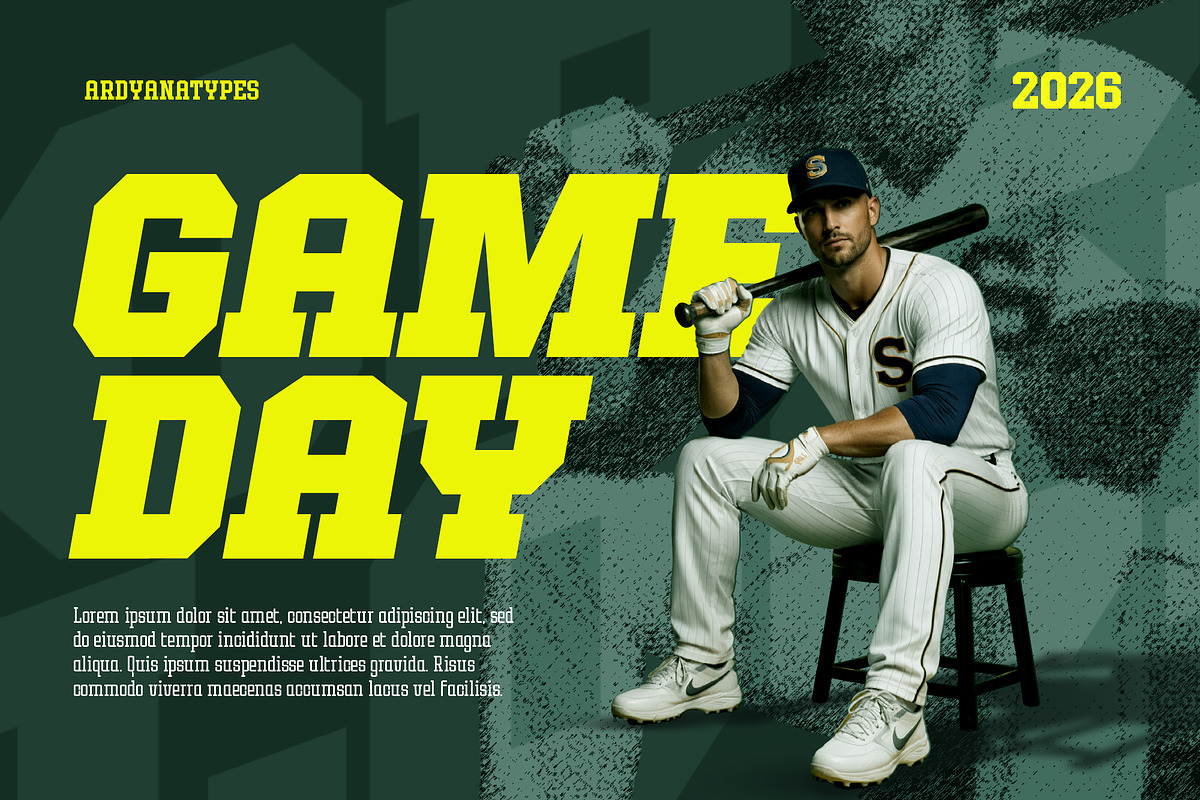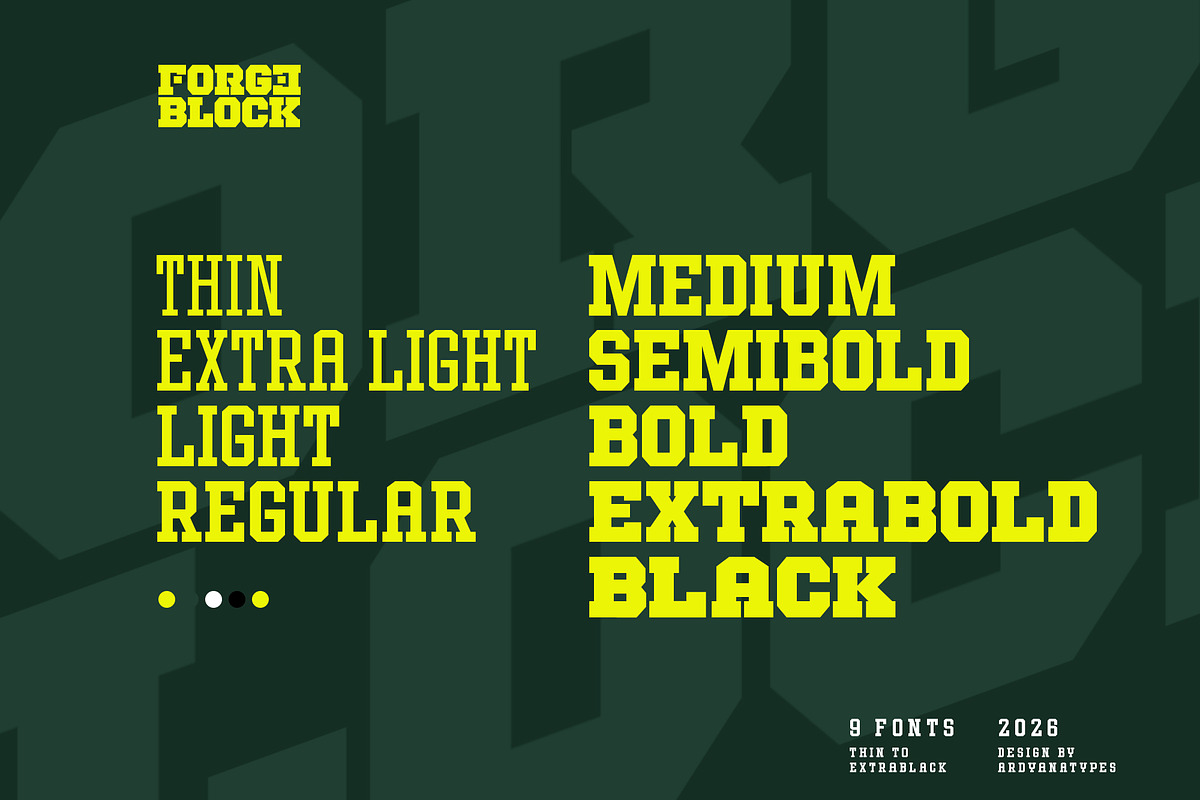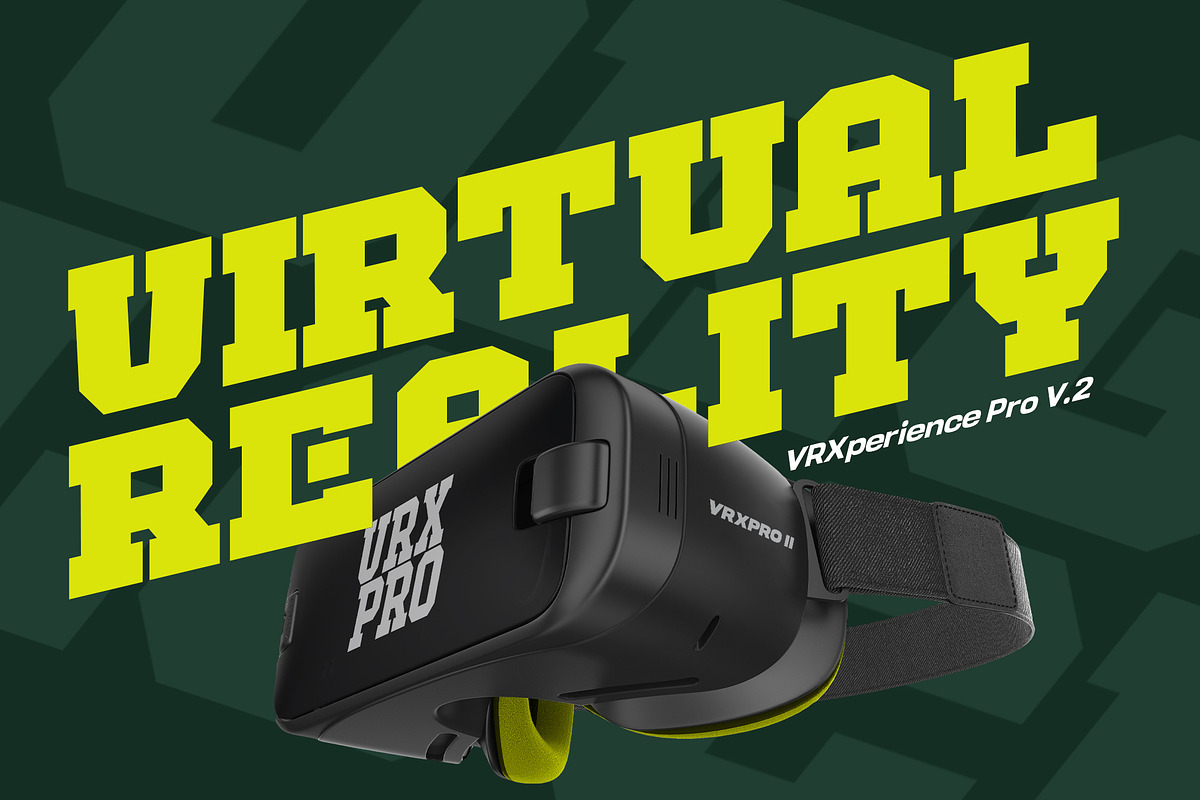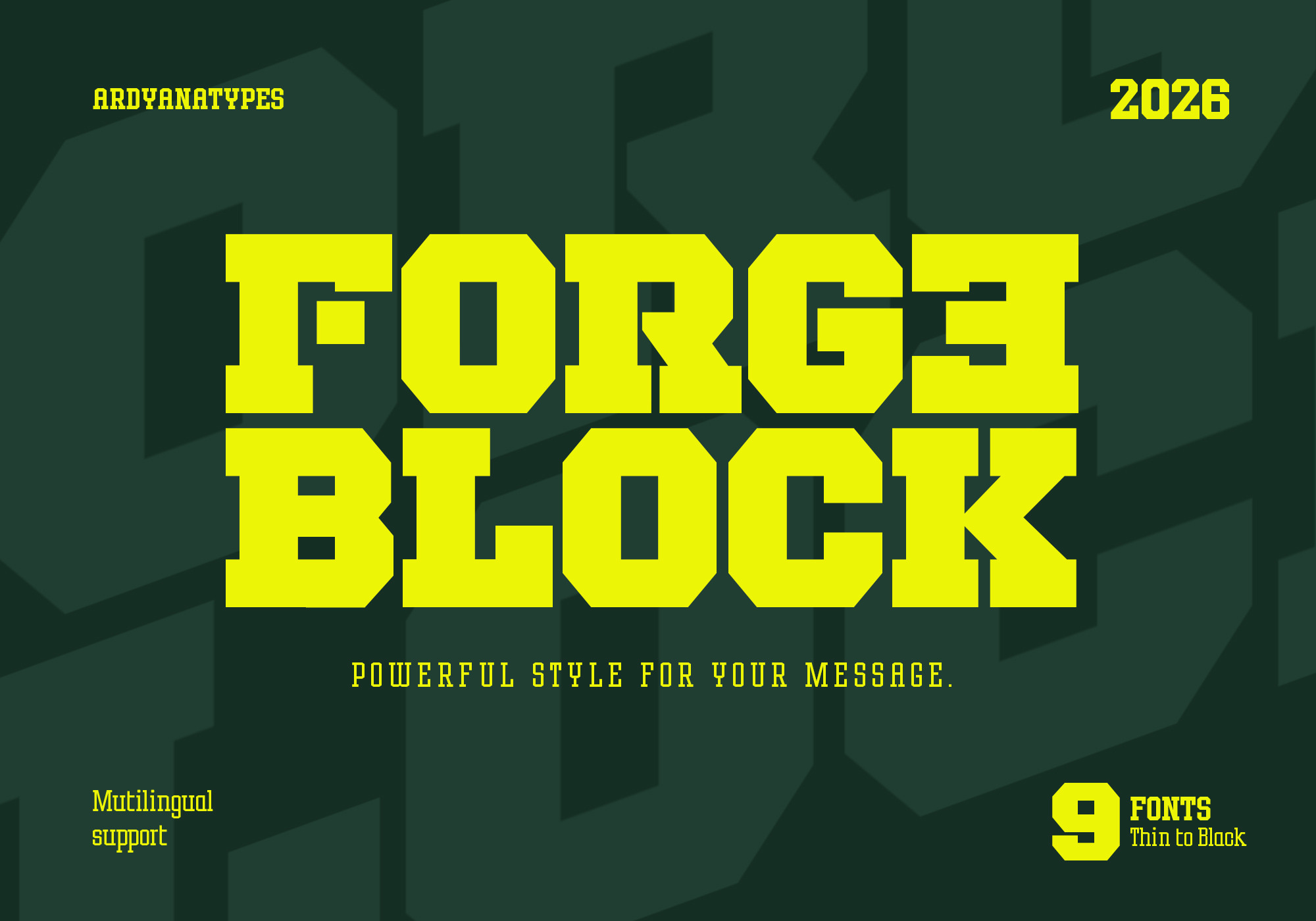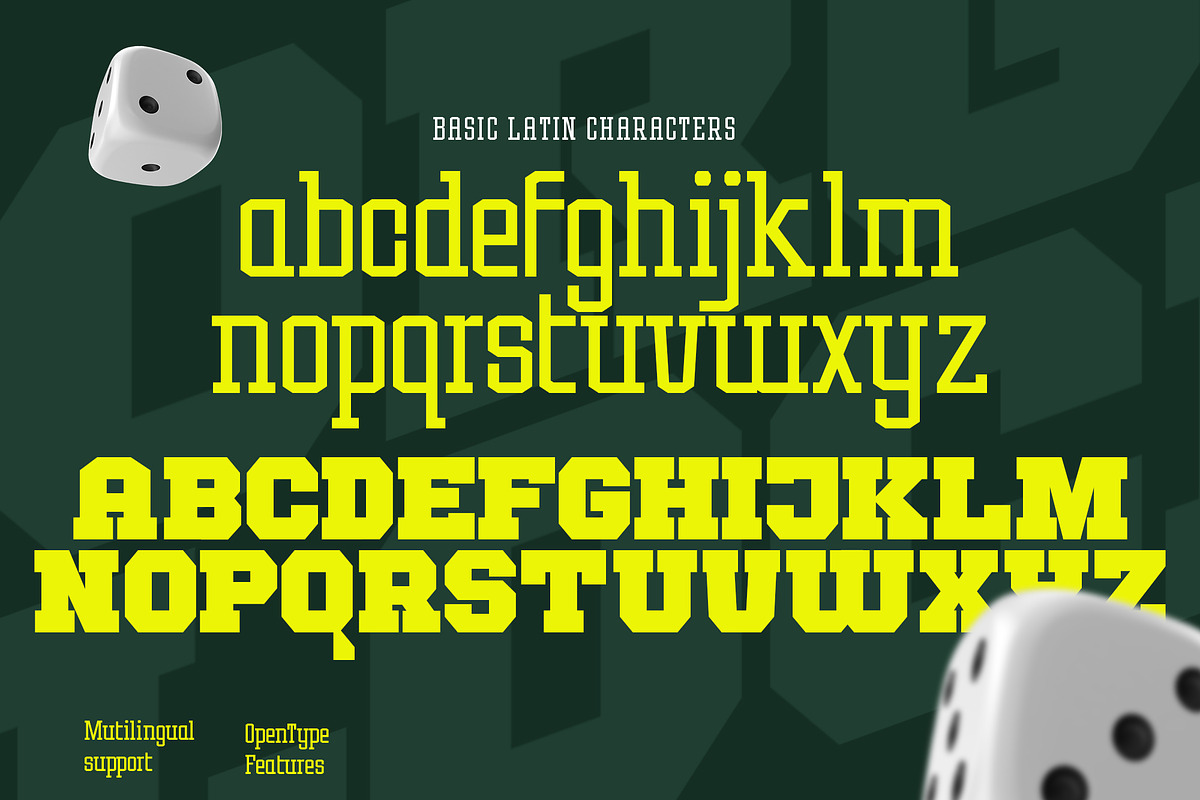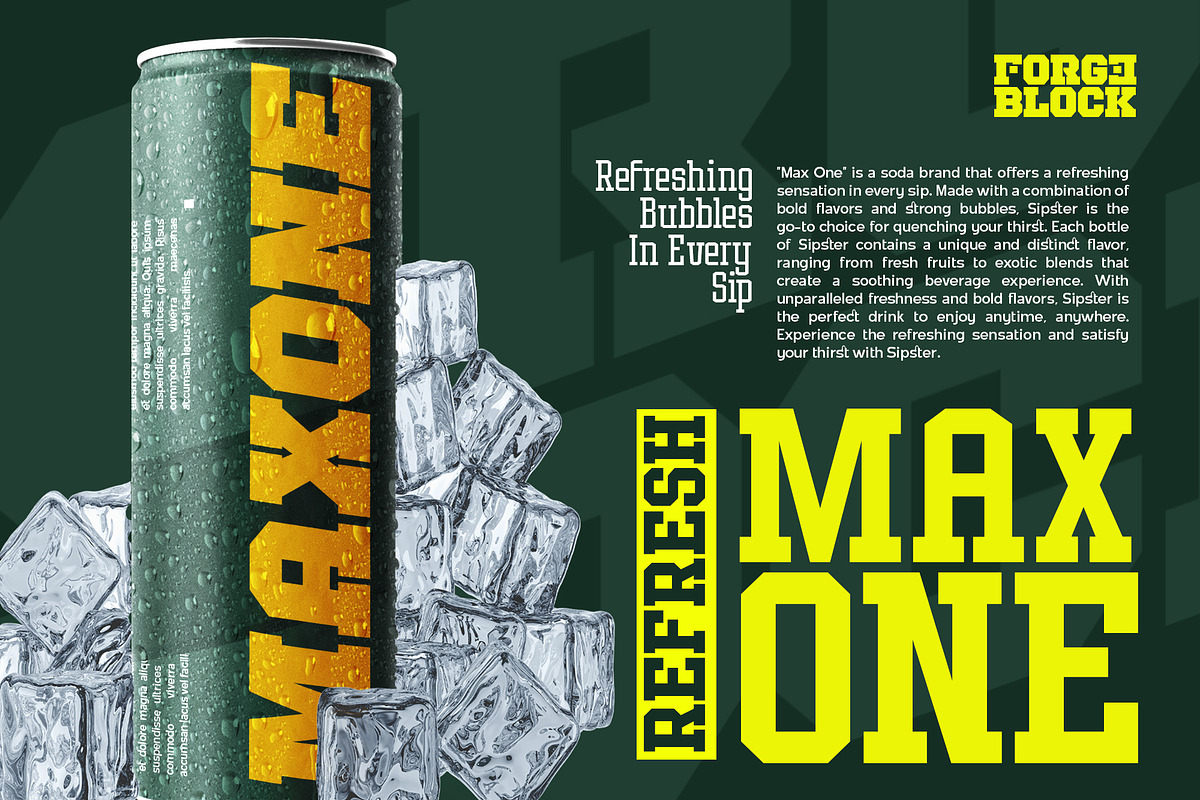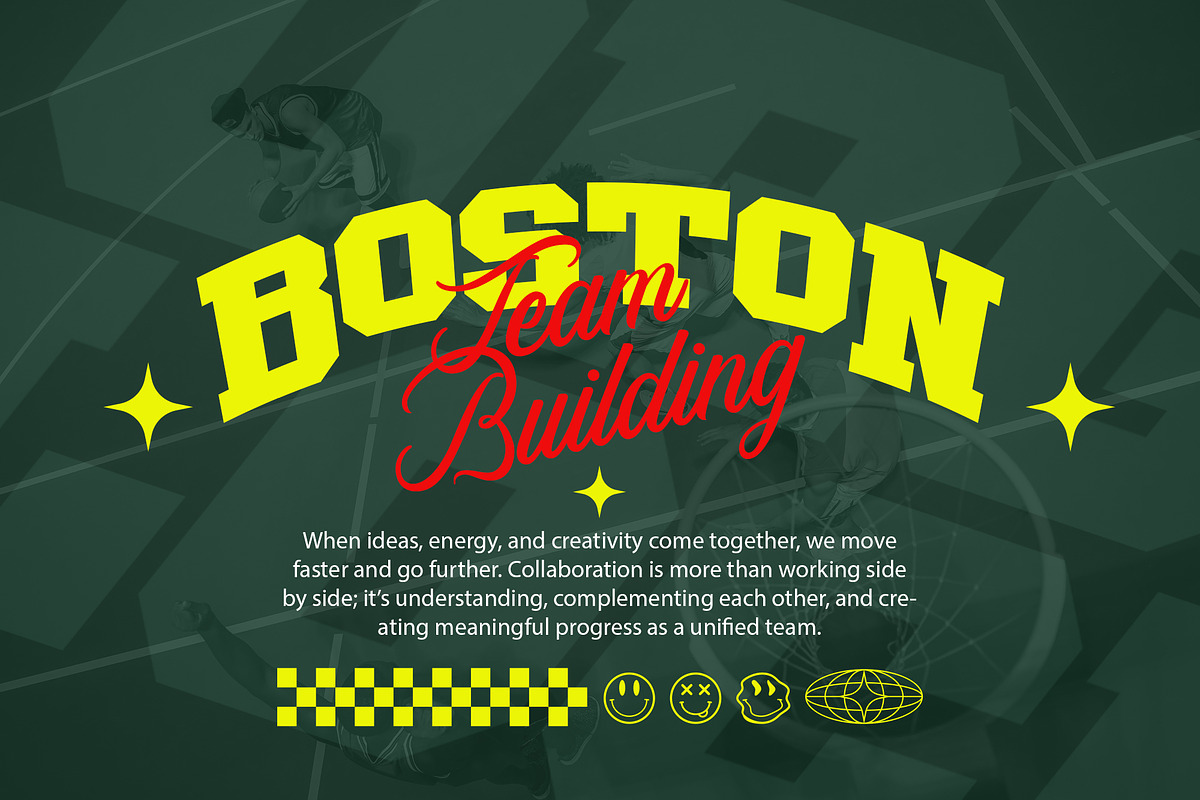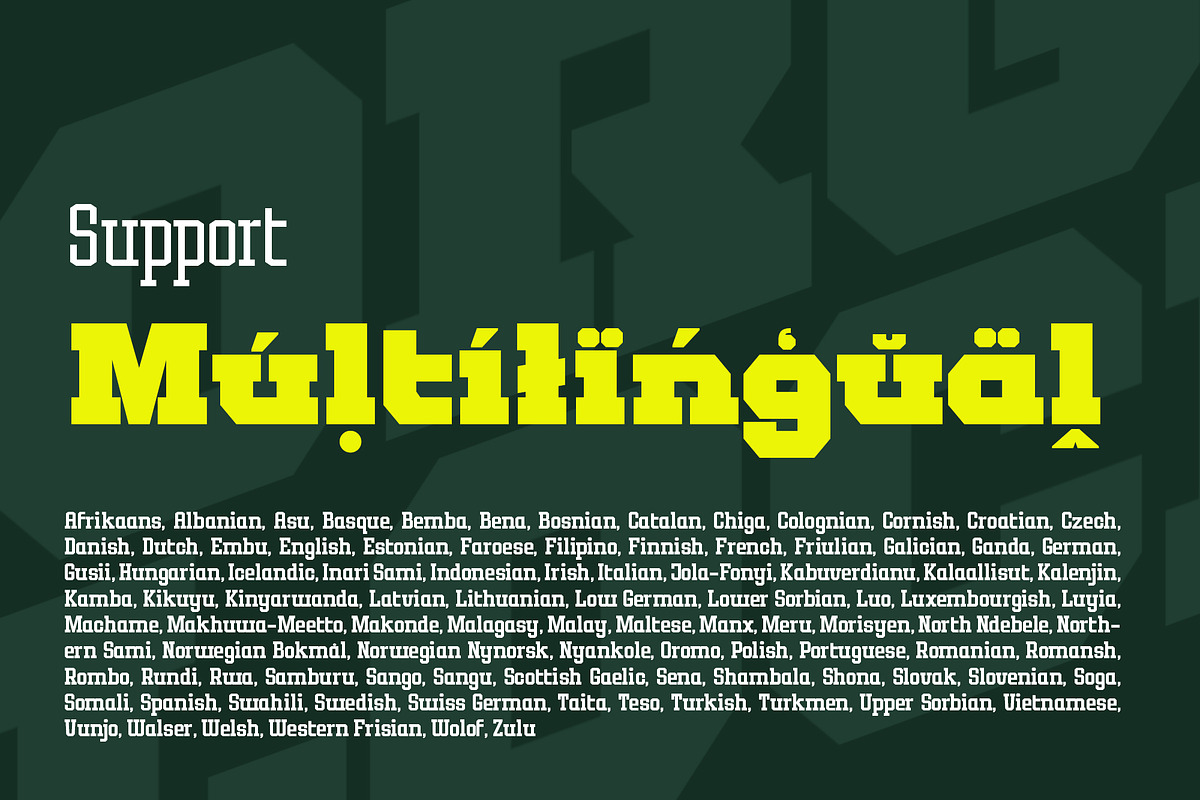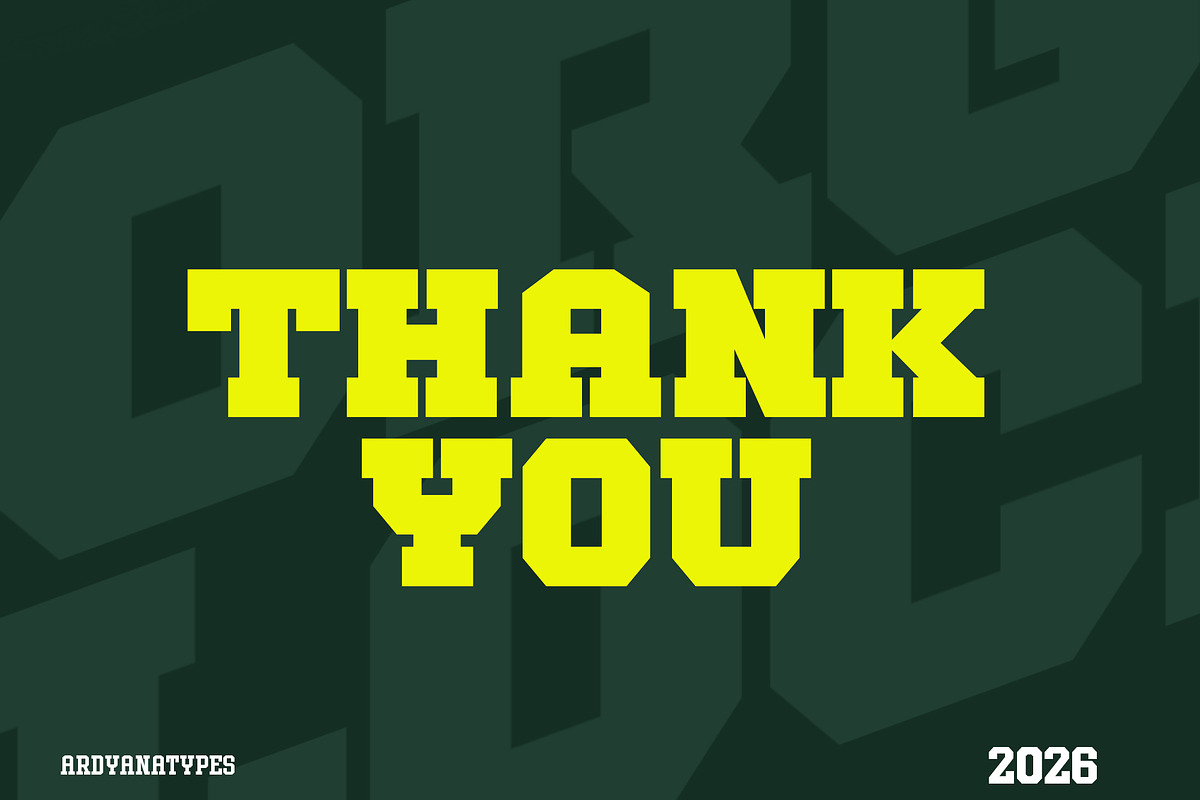
Forge Block – A Bold Typeface Forged
Forge Block is a bold display typeface designed to deliver strength, confidence, and visual impact. Inspired by industrial, sports, and modern branding aesthetics, this typeface features solid construction, sharp edges, and powerful proportions that demand attention instantly.
Built for designers who need typography that speaks loudly, Forge Block is perfect for headlines, posters, branding, sports graphics, esports, technology projects, product packaging, and digital promotions.
What Makes Forge Block Stand Out? • Strong & Bold Character – Created to dominate the visual space with confidence. • 9 Font Weights (Thin to Block) – From subtle accents to ultra-bold statements. • Multilingual Support – Ready for global and multi-language projects. • Excellent Readability – Clear and legible even at large sizes or dense layouts. • Modern & Versatile Design – Ideal for sports, gaming, tech, events, and contemporary branding.
Forge Block is more than just a bold font— it’s a visual weapon for designers who want their message to feel strong, assertive, and unforgettable.
A – Z Character Set
a – z Characters set
Numerals & Punctuations
Ligatures & Alternates